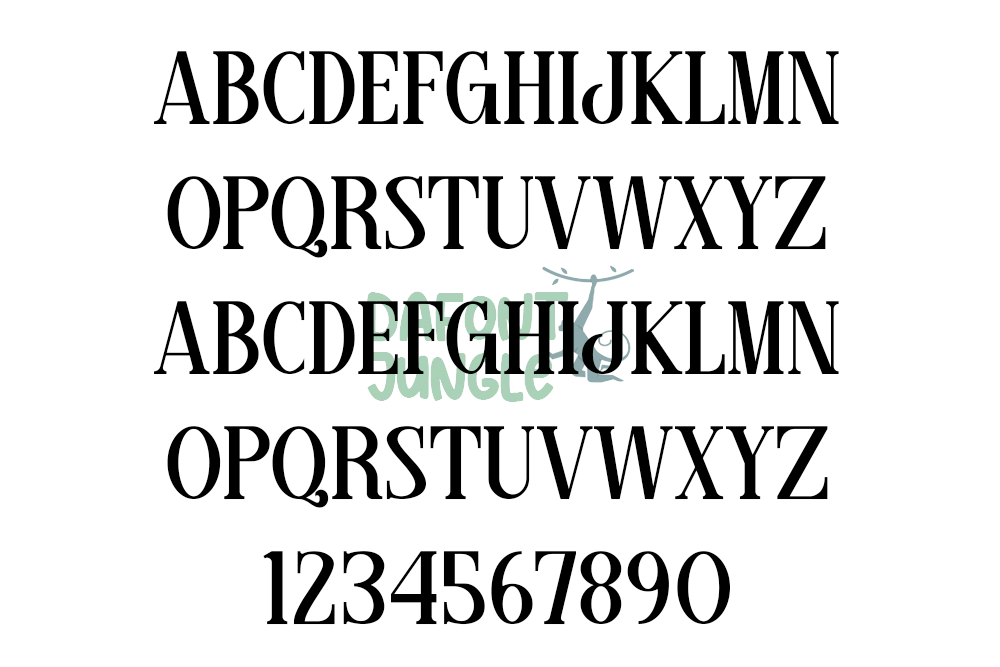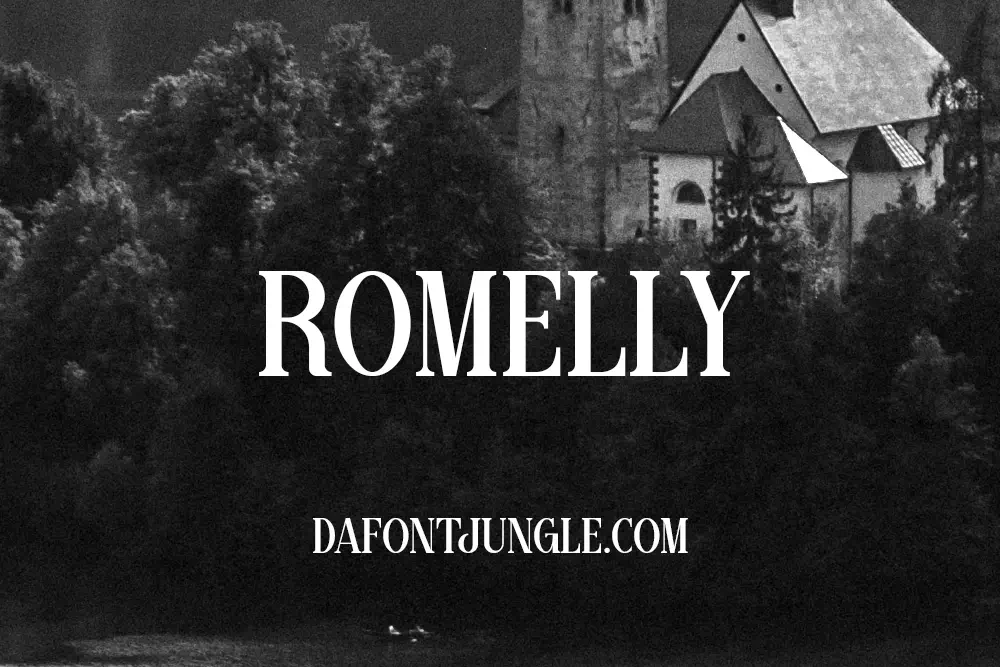
Romelly – Modern Elegant Serif Font
Romelly brings modern elegance to your designs with clean lines and graceful curves. This serif font adds a sophisticated and timeless touch to both print and digital projects. You can easily access all its stylish ligatures and glyphs thanks to PUA encoding, making customization smooth and efficient.